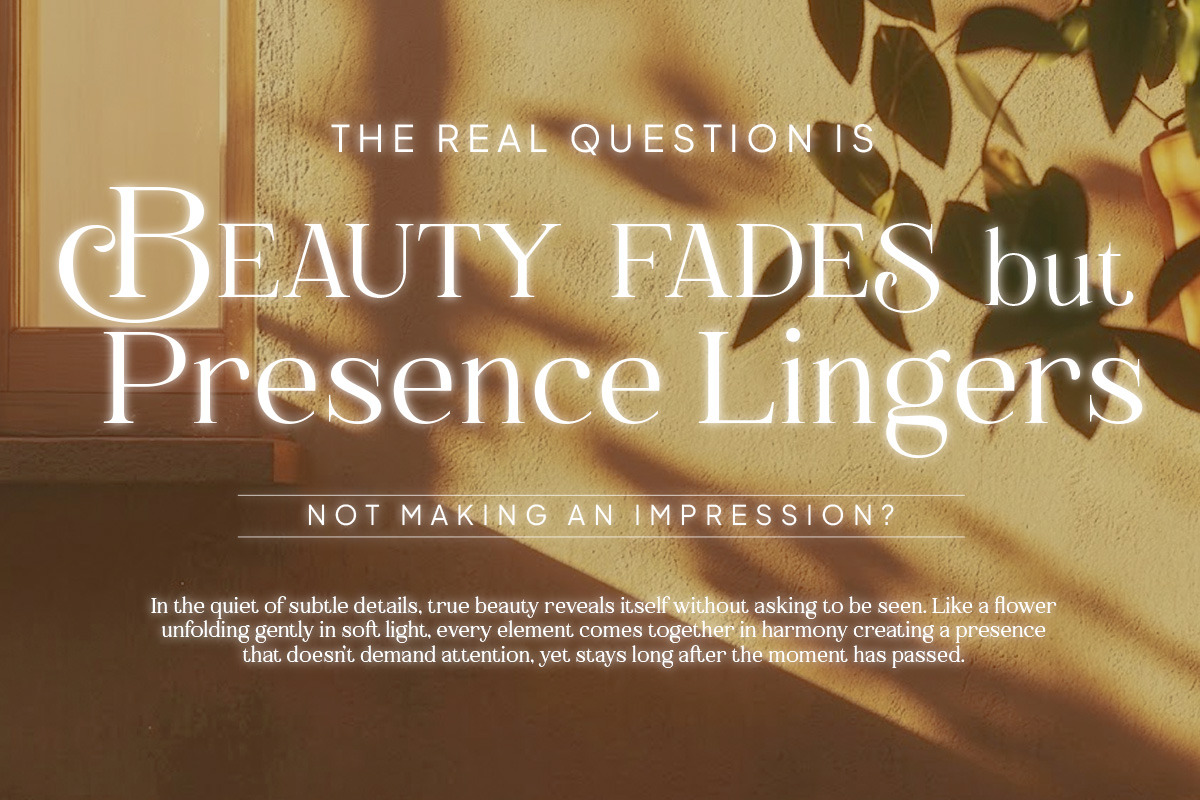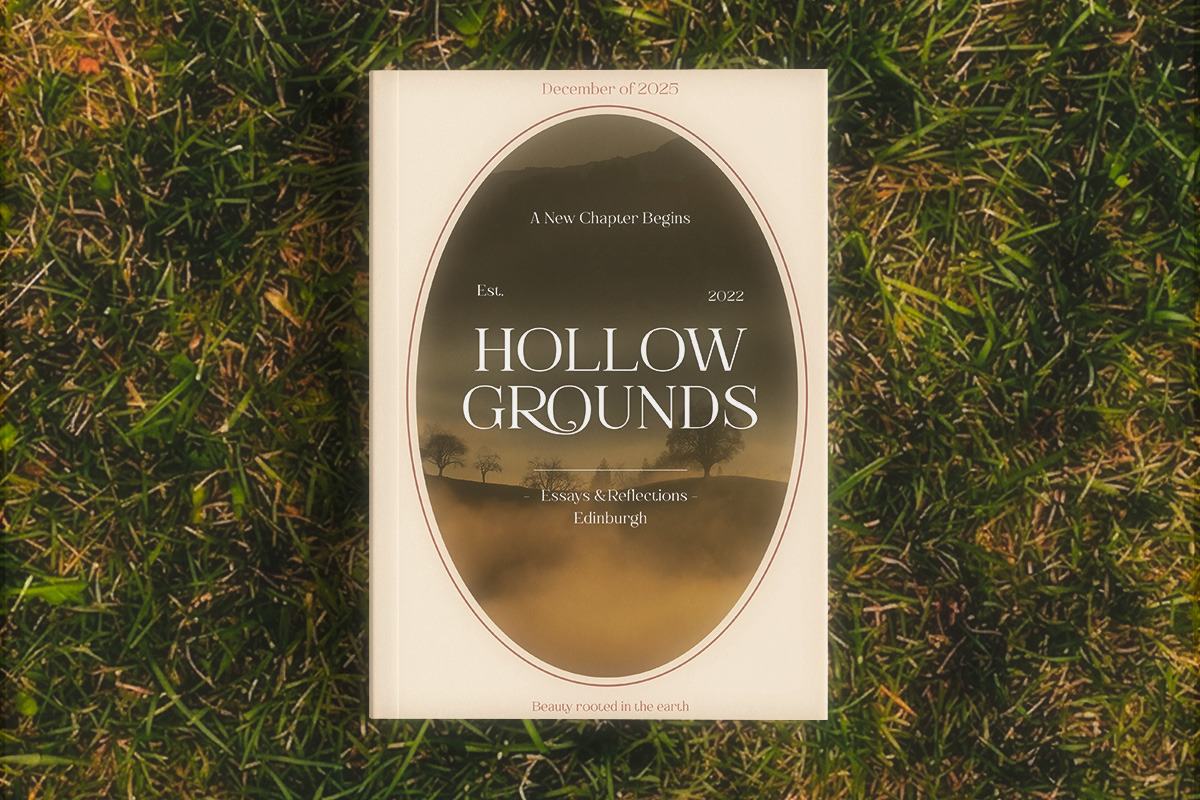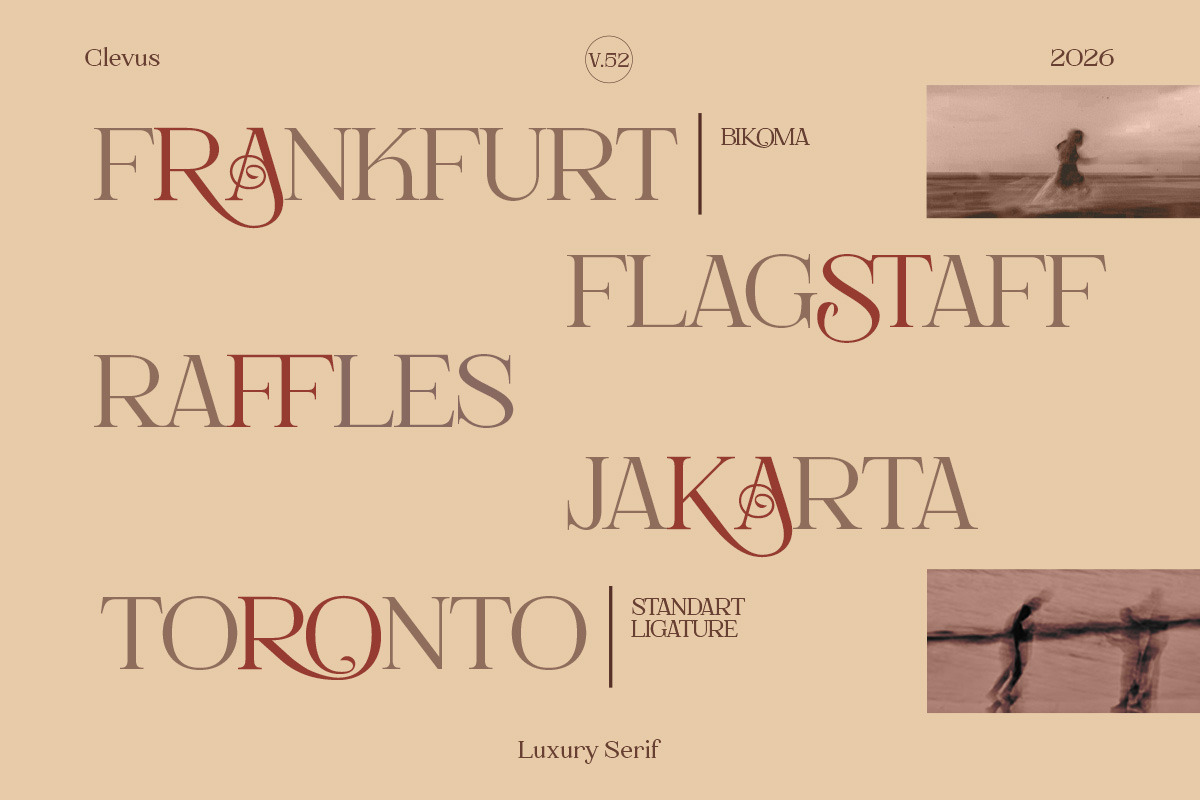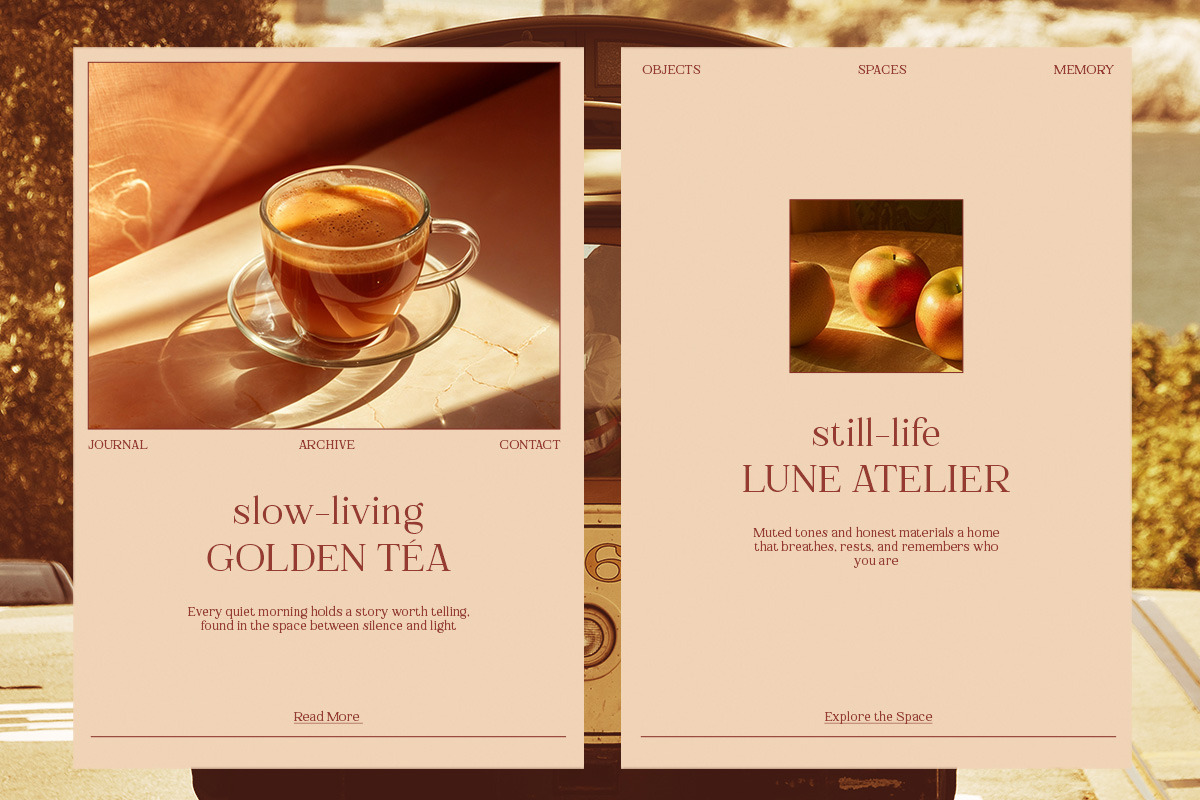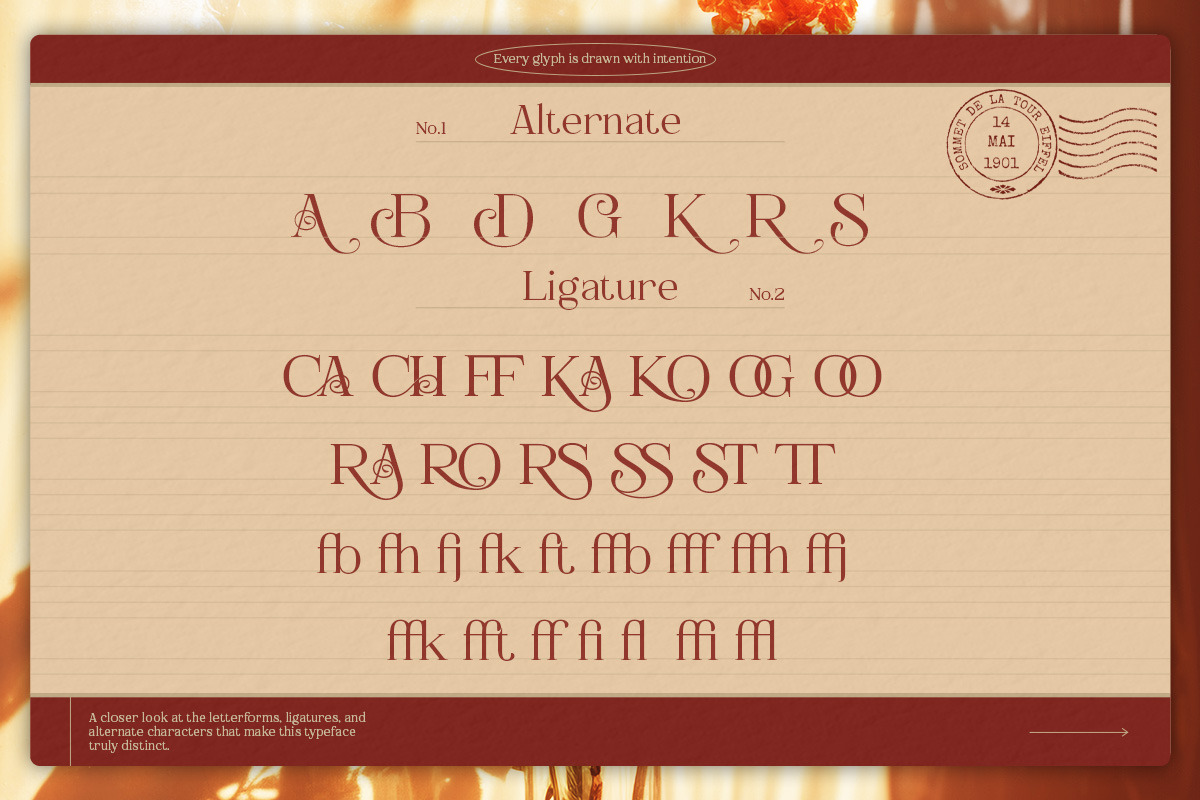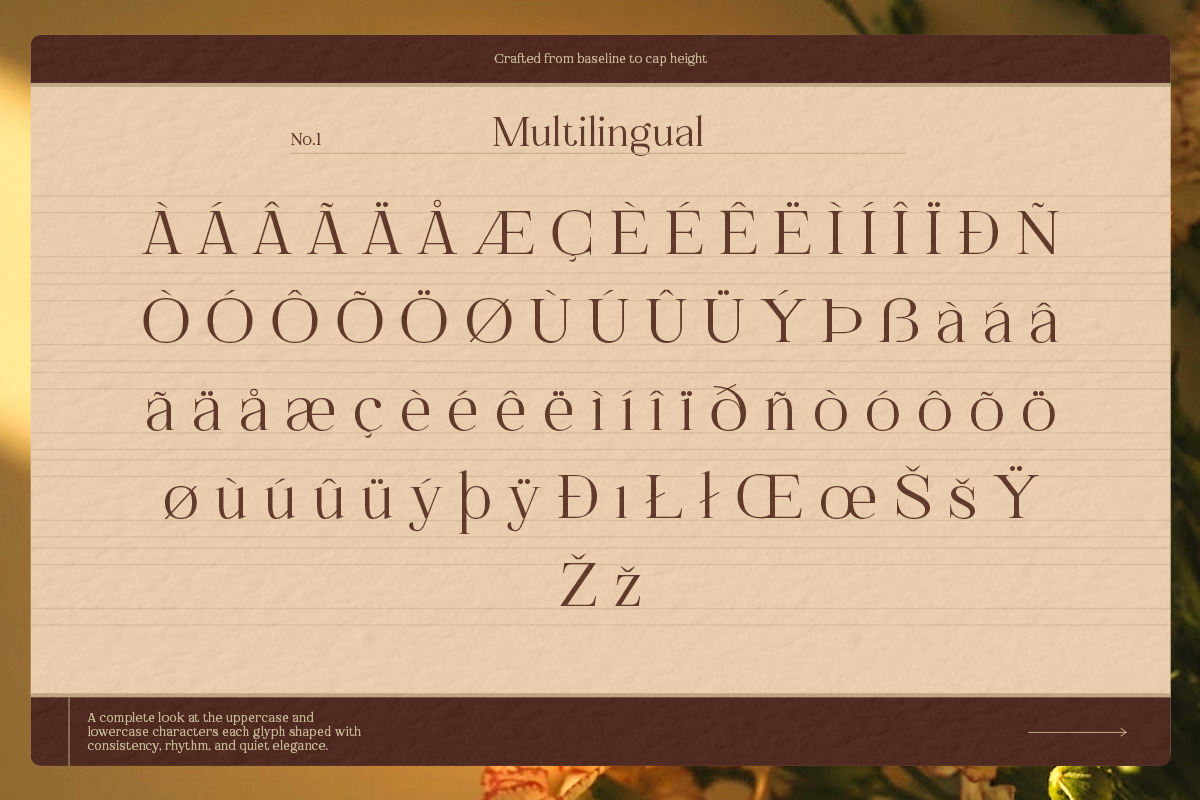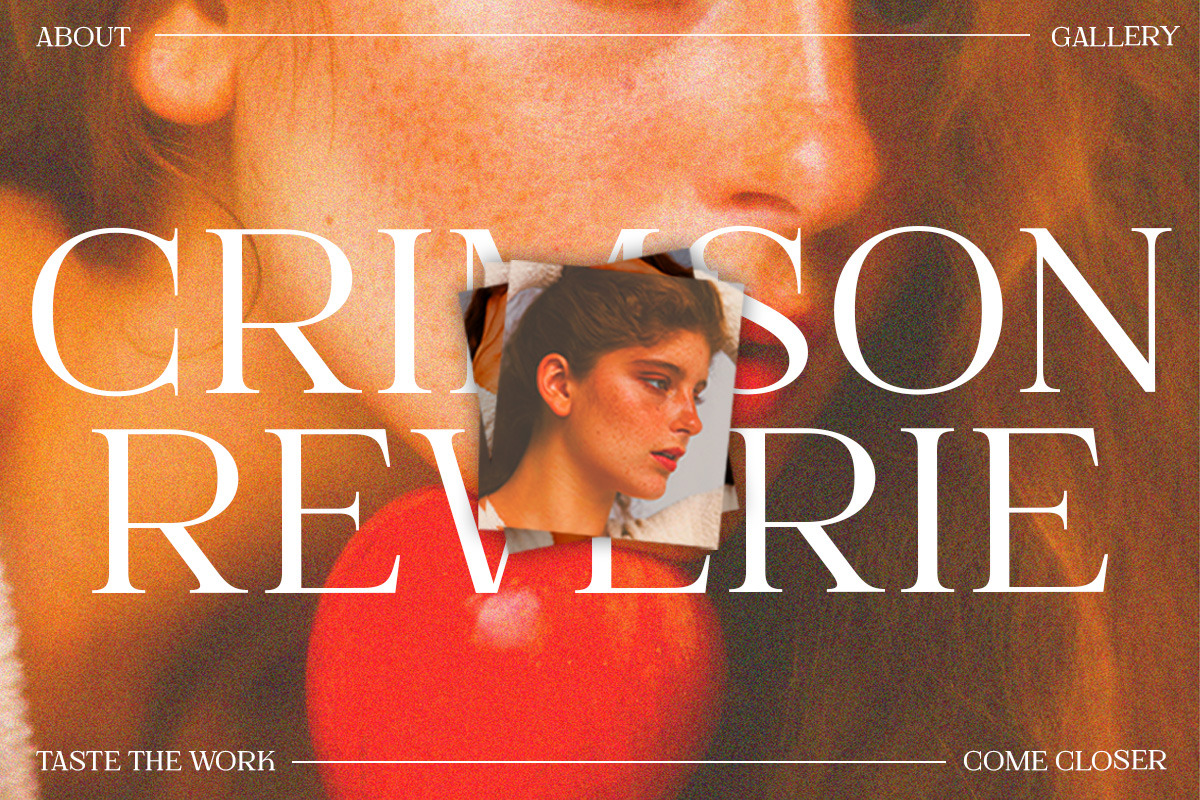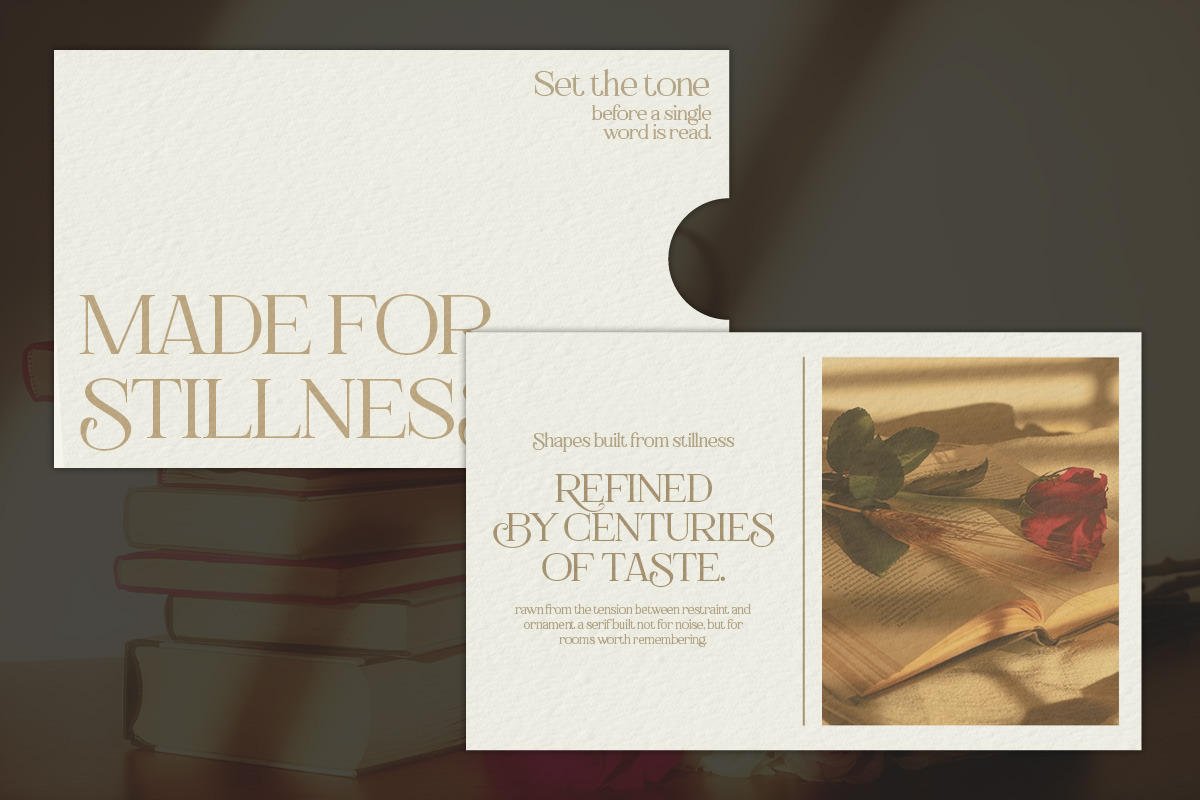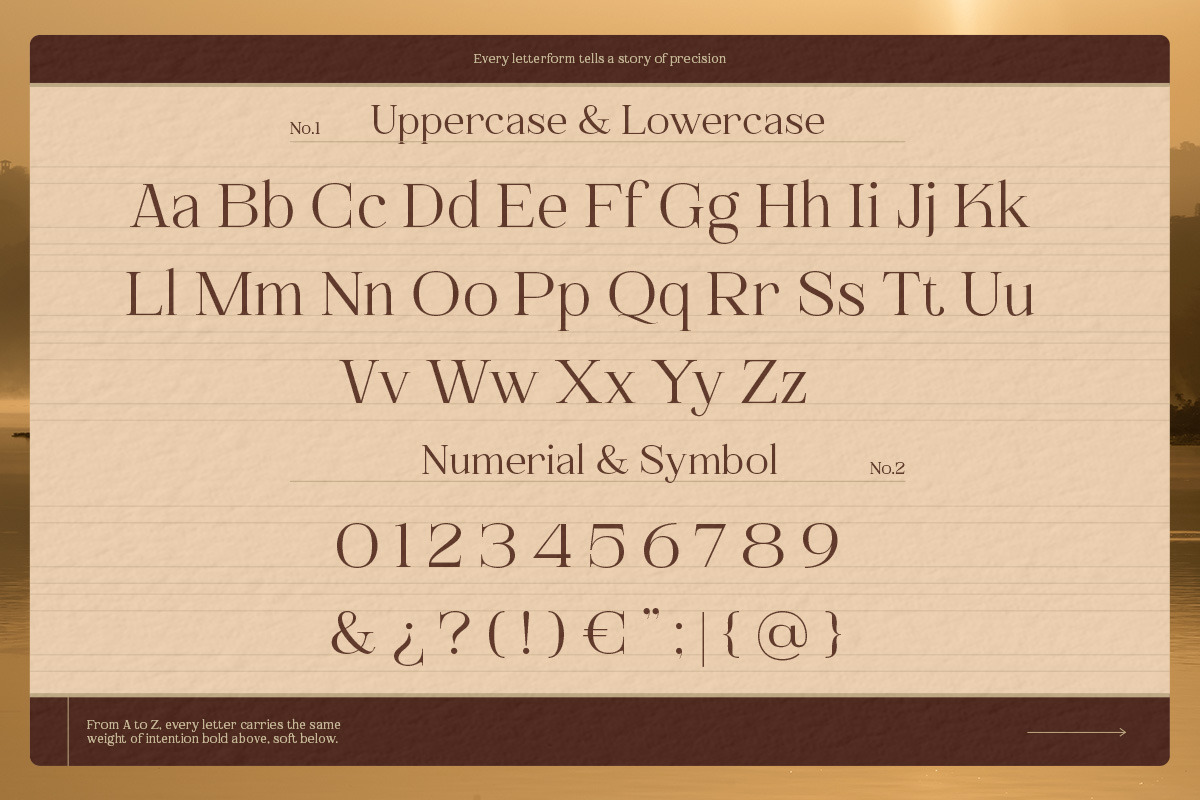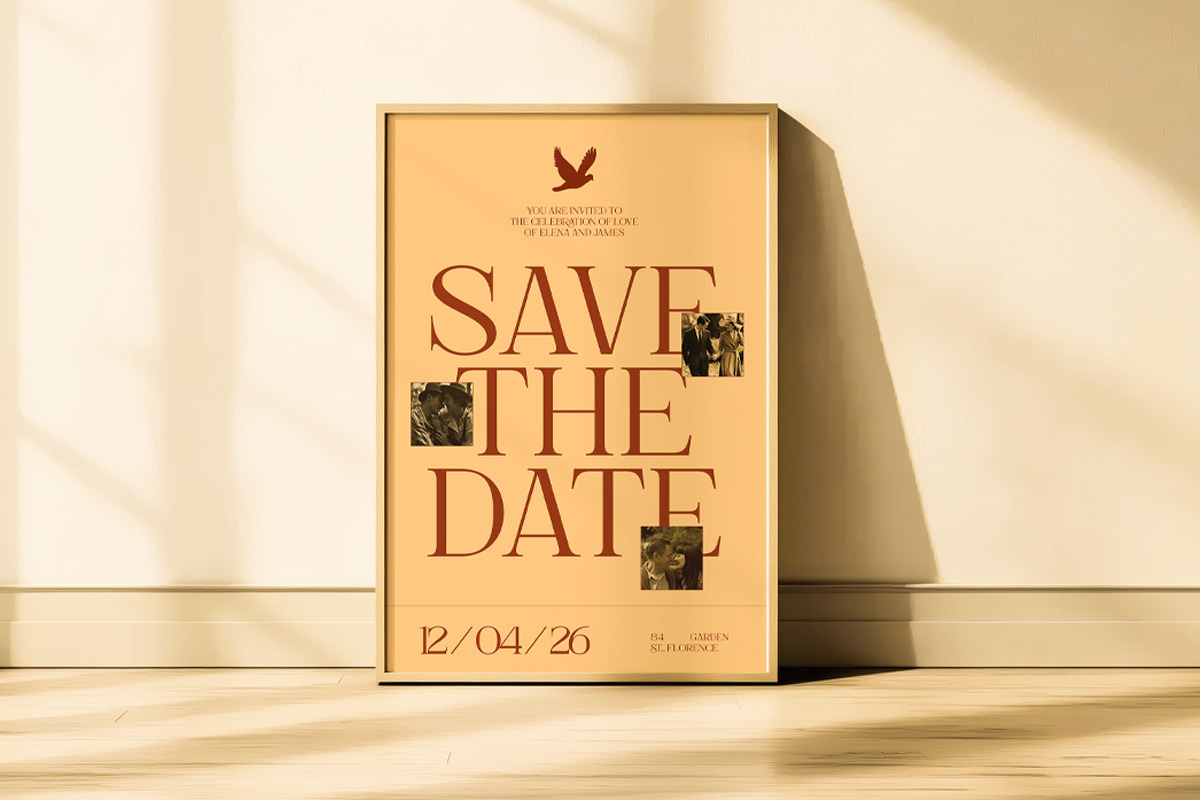
Bikoma | Luxury Serif
Proudly present Bikoma a modern serif font with a touch of elegant.
Bikoma a modern serif font that draws inspiration from the iconic style of the era. Its regular and edgy lines make it the perfect choice for creating retro-inspired logos, fashion brand, magazine, clothes, lettering, quotes, and other design materials. With Bikoma, you can effortlessly infuse your work with a touch of nostalgia and capture the essence of the 90s in your designs.
Letters, numbers, symbols, and punctuation
30+ alternates and ligatures